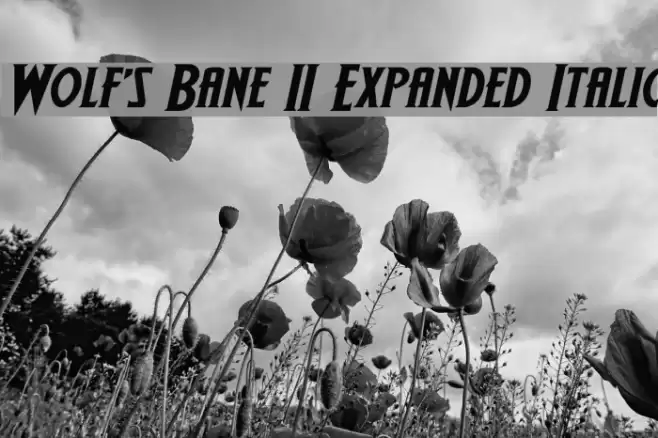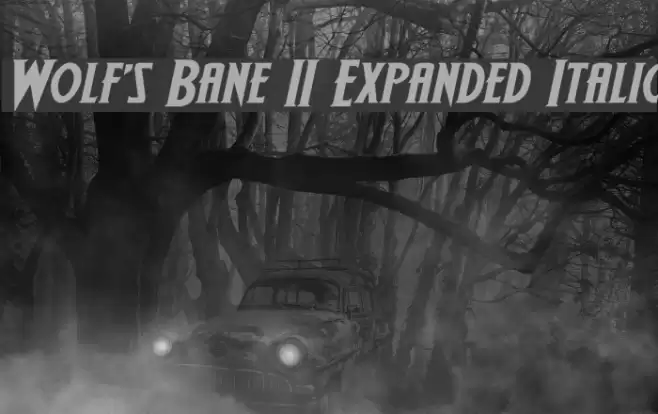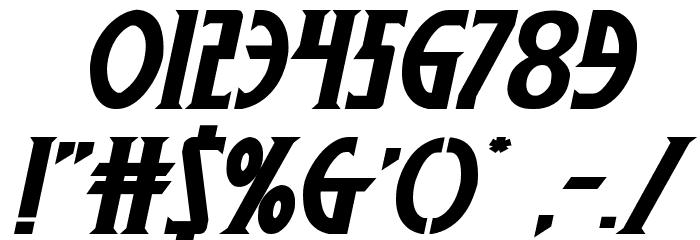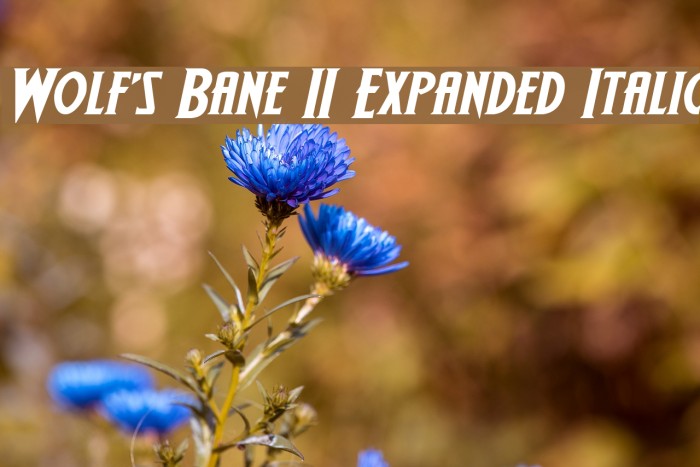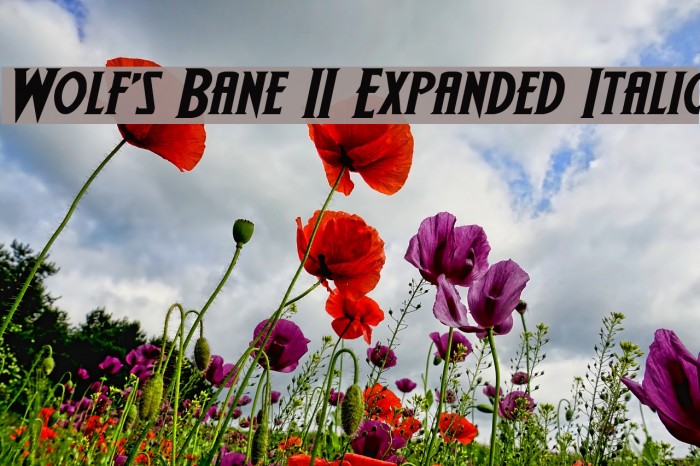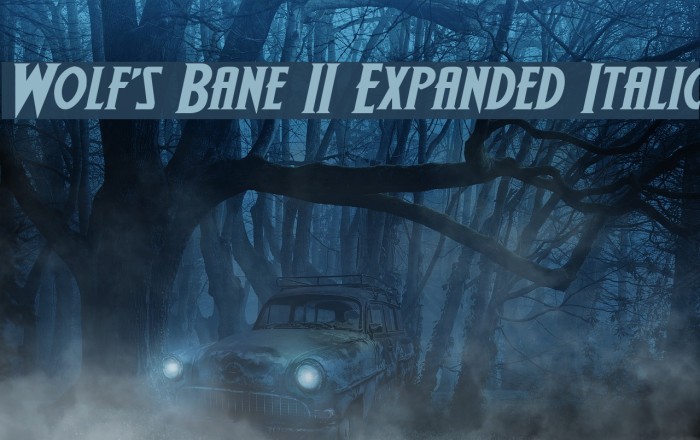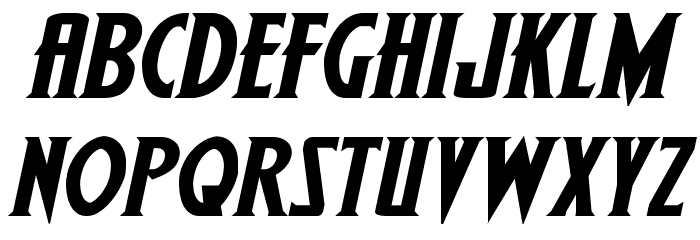
Wolf's Bane II Expanded Italic Font
Wolf's Bane II Expanded Italic Description
This font exhibits a bold and dynamic style with a distinct italic slant, giving it a sense of motion and energy. The characters are expanded, providing a wide stance that enhances readability while maintaining a strong visual impact. The strokes are thick and consistent, contributing to a high contrast appearance that makes each letter stand out prominently. The overall design is modern and assertive, suitable for making statements that require attention. The angular cuts and sharp edges add a touch of aggression and boldness, making it ideal for projects that need a powerful and commanding presence.
A bold, expanded italic font with high contrast and dynamic style from Uncategorized fonts.
- Proposed Projects: Ideal for headlines, posters, branding, and any design needing a strong, impactful typeface.